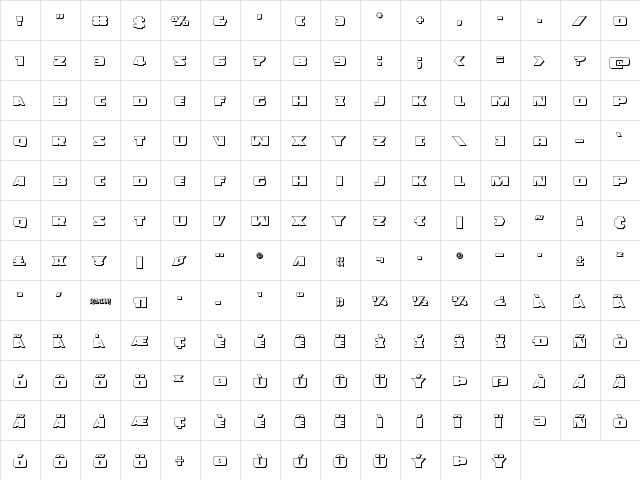
Police Cruiser 3D Regular
Design Context for Police Cruiser 3D Typeface
Police Cruiser 3D is a composed and adaptable typeface that performs quietly and consistently across a wide range of design contexts.
Pro Tip: Use Police Cruiser 3D in both headline and body roles to test its range before committing to a single application.